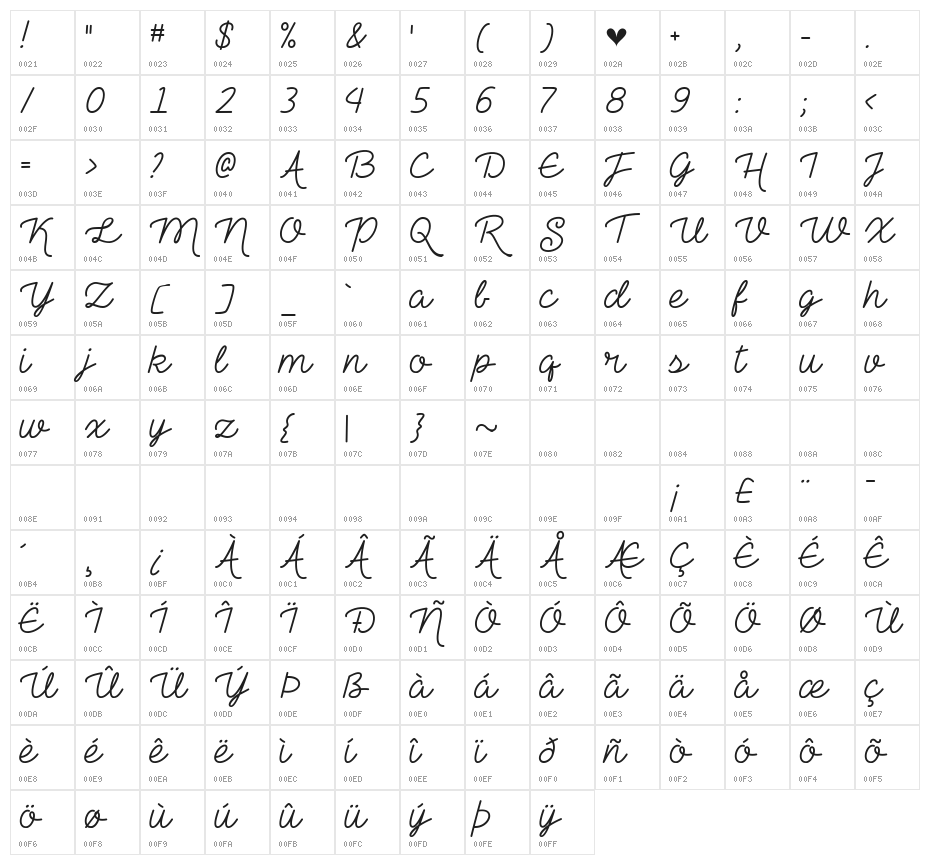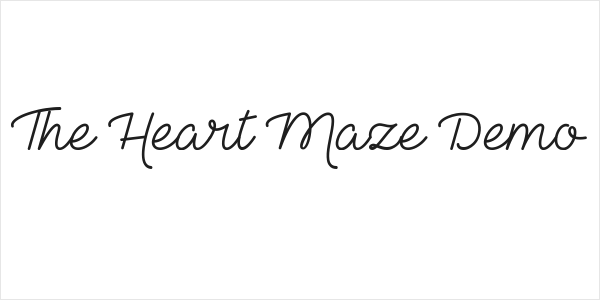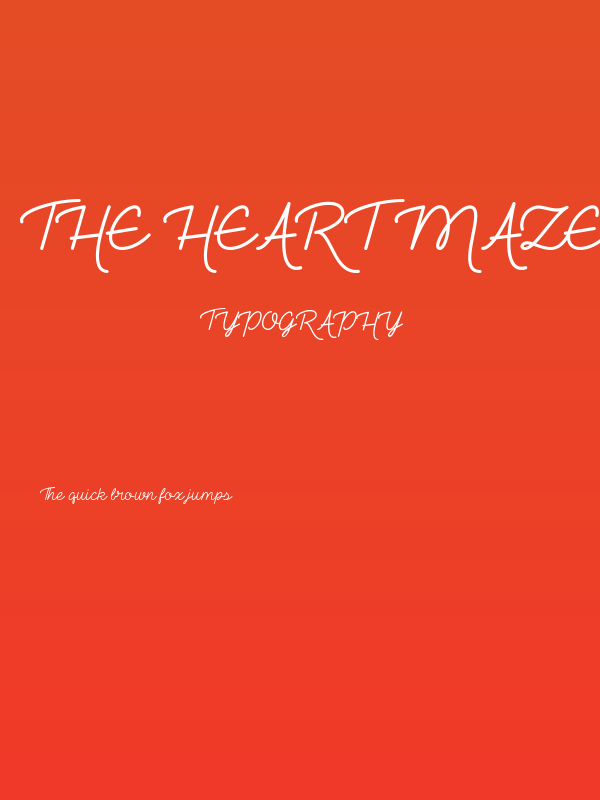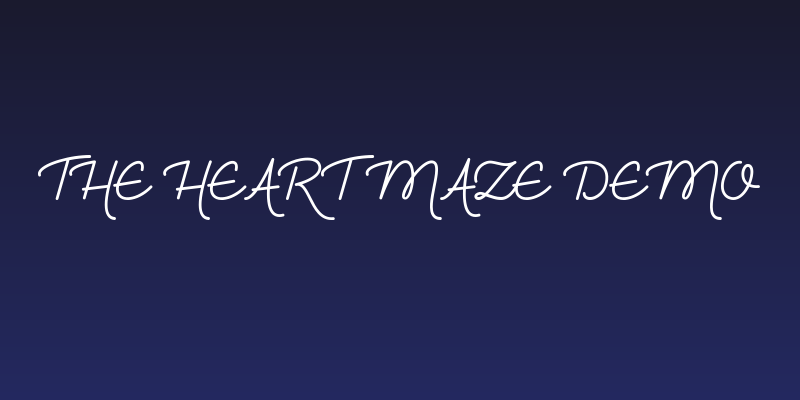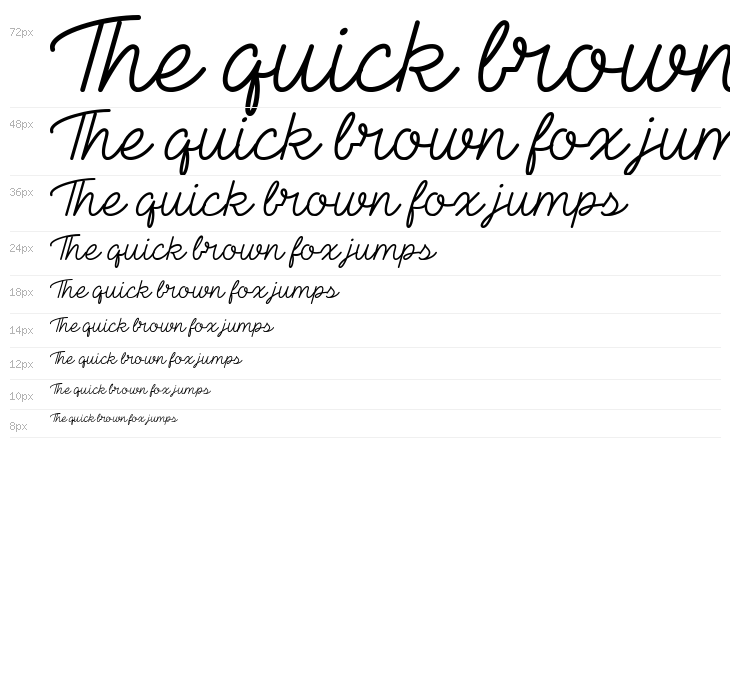
The Heart Maze Demo Font
The Heart Maze Demo Description
This font features a flowing, cursive style that exudes elegance and charm. The letters are connected in a smooth, continuous manner, giving it a handwritten appearance. The uppercase letters are slightly more ornate, with gentle curves and loops, while the lowercase letters maintain a consistent, fluid form. The numerals are clear and easy to read, matching the overall script style. Special characters, including punctuation and symbols, are designed to complement the cursive nature, adding a touch of sophistication. The heart symbol is a unique addition, enhancing the font's romantic and whimsical feel.
| Overall Style | Romantic, Elegant |
| Proposed Projects | Ideal for wedding invitations, greeting cards, personal branding, and romantic-themed designs. |